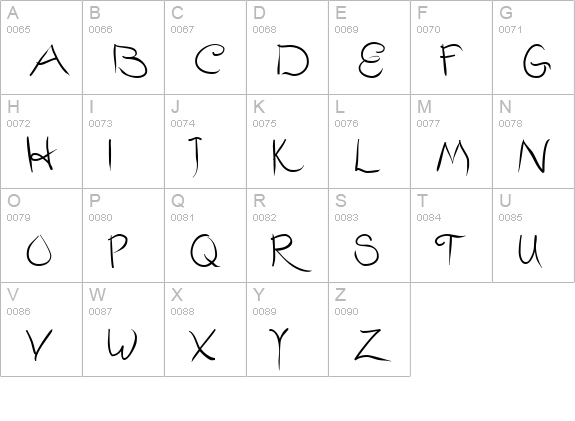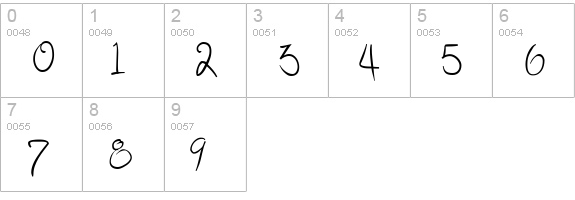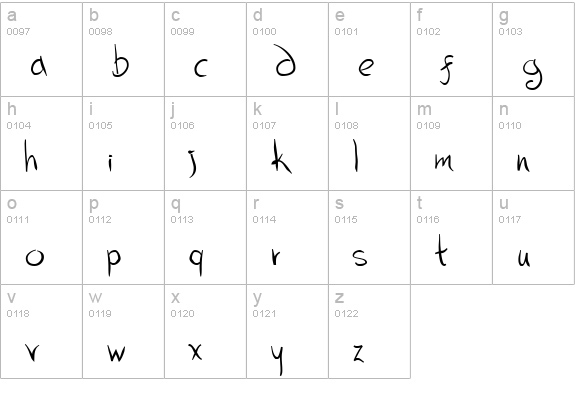
ChristmasGiftScript Font Details
Introducing ChristmasGiftScript font, a whimsical and festive typeface perfect for adding a touch of holiday charm to your designs. This delightful script font features elegant curves and playful flourishes that evoke the spirit of Christmas. With its unique style and cheerful demeanor, ChristmasGiftScript is sure to bring joy to your projects. And the best part? ChristmasGiftScript is available for free! That's right, you can easily download this lovely font at FontsMarket.com without any cost. Whether you're creating greeting cards, invitations, posters, or any other festive designs, ChristmasGiftScript will add a special touch that will delight your audience. Spread the holiday cheer with this charming font and let your creativity shine!